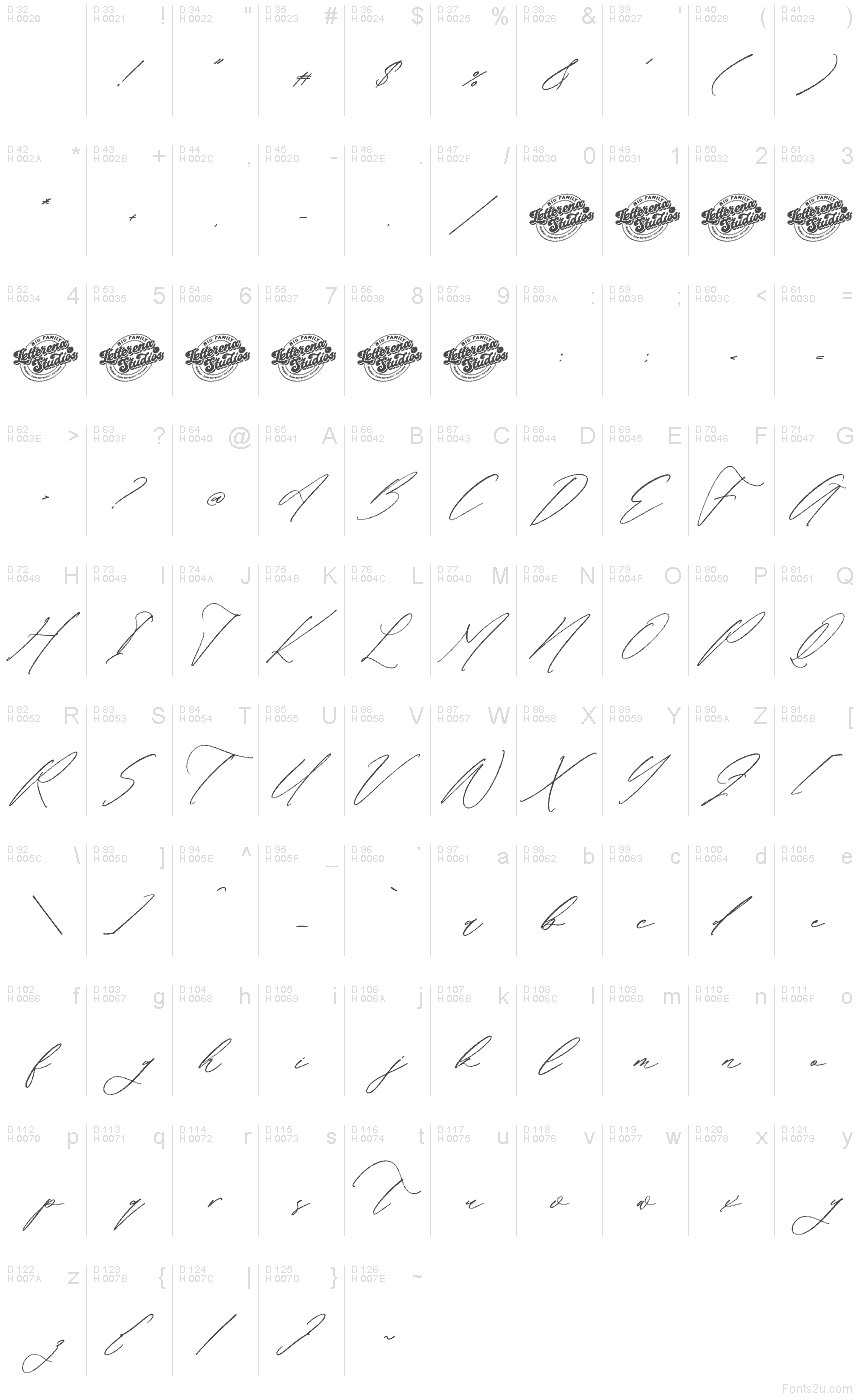
Victoria Cordeline DEMO VERSION Italic
Victoria Cordeline Italic font is a light, condensed handwritten typeface designed by Storytype Studio. The font shows an elegant and flowing style with a modern script look. While mainly looking as signature-like, its sophisticated expressive components give out a distinctive appearance in any project. Therefore, posters, promotional materials, titles, or apps would all find this free font valuable.
All of the above features make Victoria Cordeline perfect to use in branding or rebranding of businesses and products like apparel items, cosmetics packages, beauty equipment packaging design and even for celebrity-related content such as interviews published both on paper pages (magazines) & digital ones (the web). Finally just spreading over colorful patterns also achieves brilliant effects!